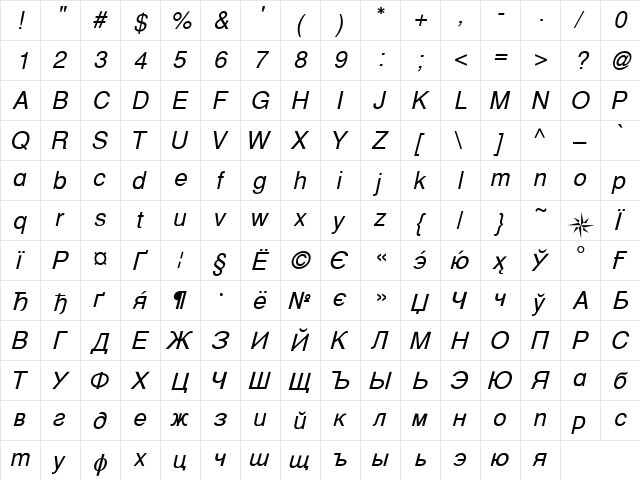
CyrillicHelvet Italic
Design Context for CyrillicHelvet Typeface
CyrillicHelvet is a composed and adaptable typeface that performs quietly and consistently across a wide range of design contexts. The slanted form adds forward momentum and visual energy.
Pro Tip: Use CyrillicHelvet for emphasis, pull quotes, and subheadings where its slanted energy can add rhythm to the layout.